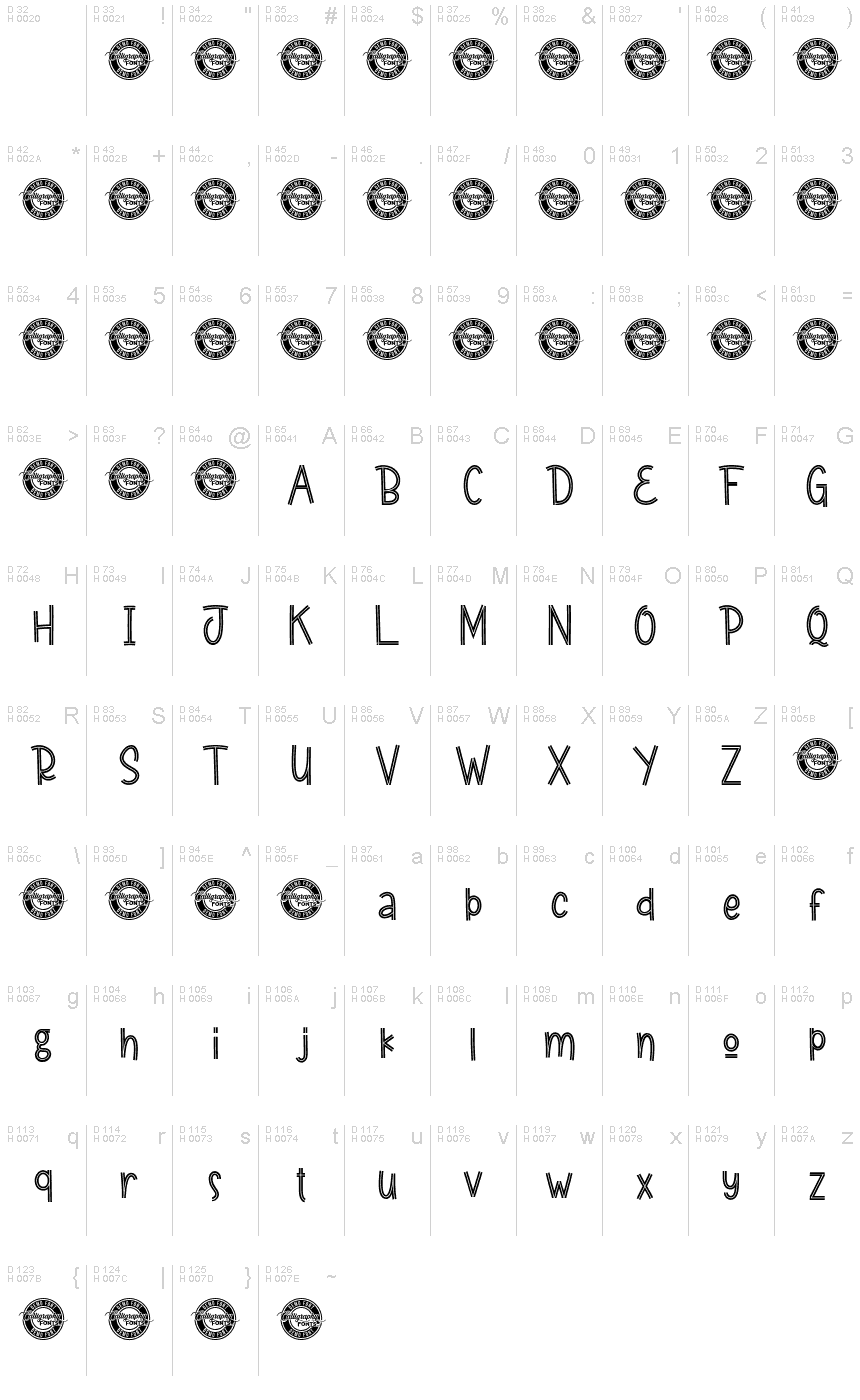
Cute Koala Demo Inline
Cute Koala Inline is a display typeface that is perfect for projects in need of a fun and playful touch. The semi-light weight and cartoon-style design of this font make it versatile for a variety of creative endeavors, such as children's books, packaging design, and social media graphics. Designed by Widiyanti & Sarah SP, the Cute Koala font family also includes other weights and styles to provide even more options for your projects. With its charming aesthetic and legible letters, Cute Koala Inline is sure to add character to any design.